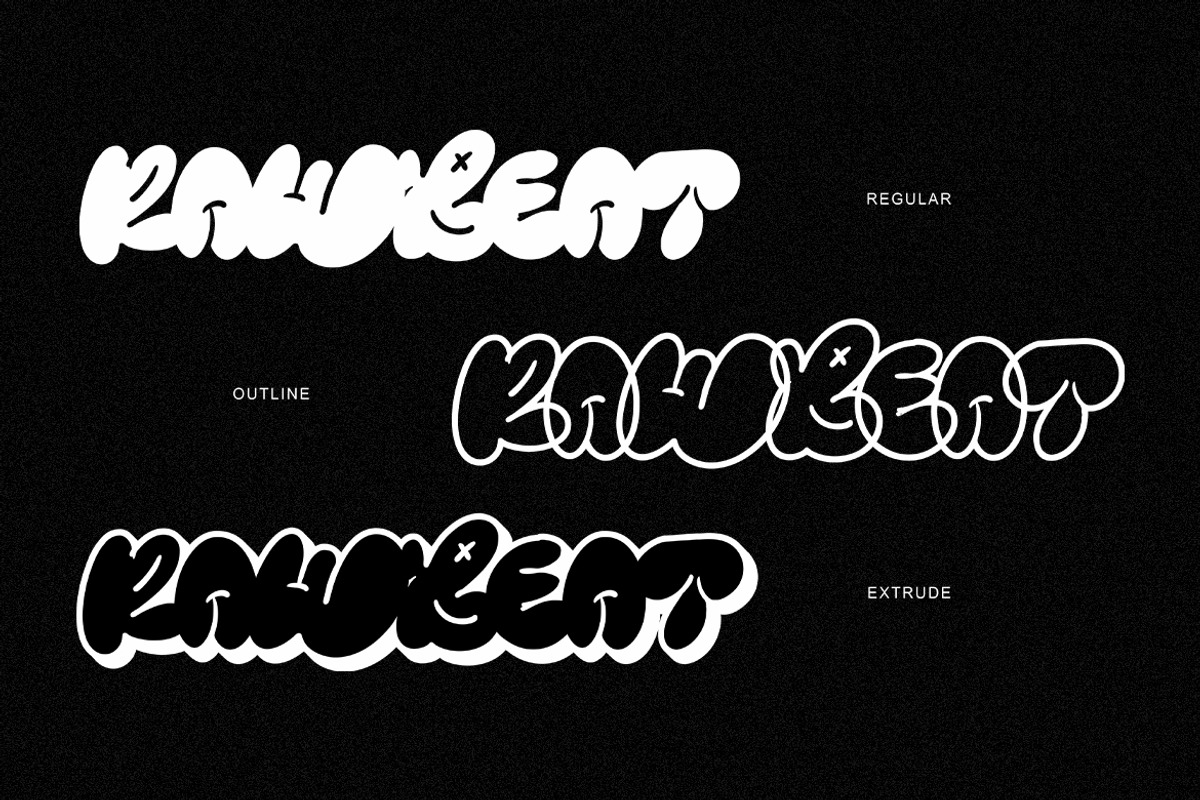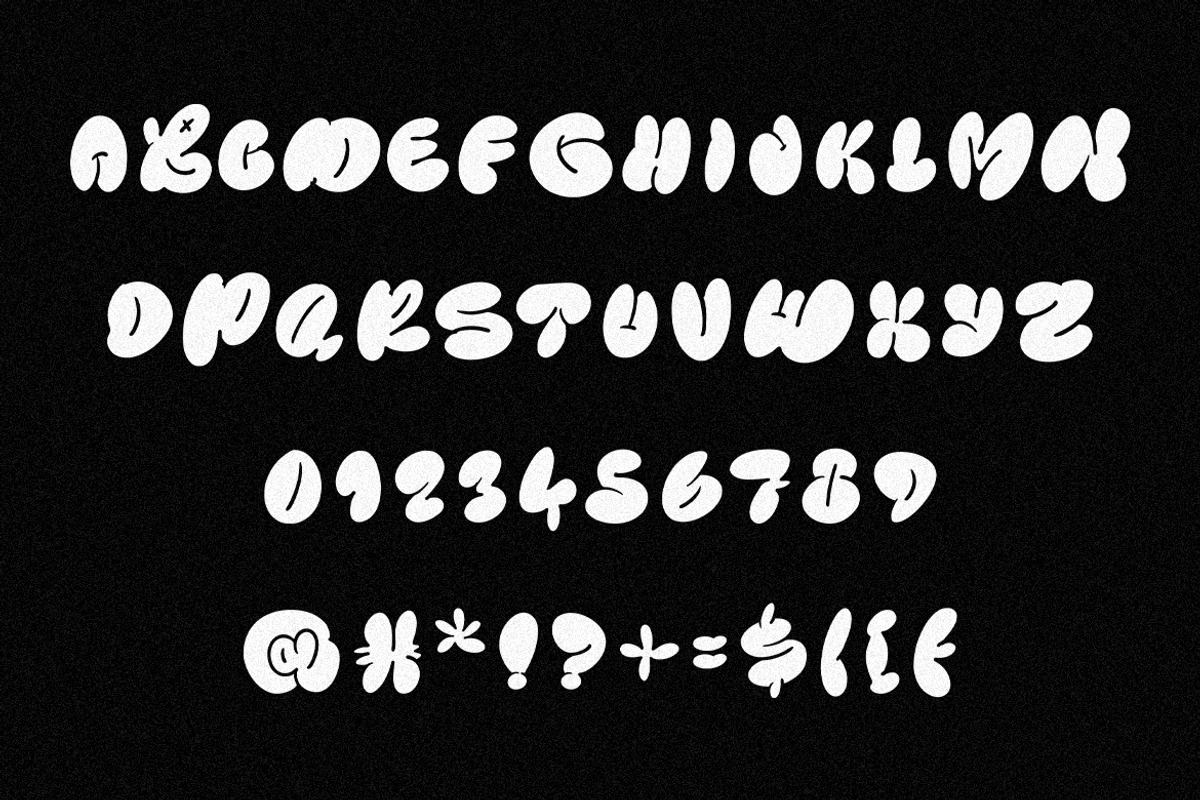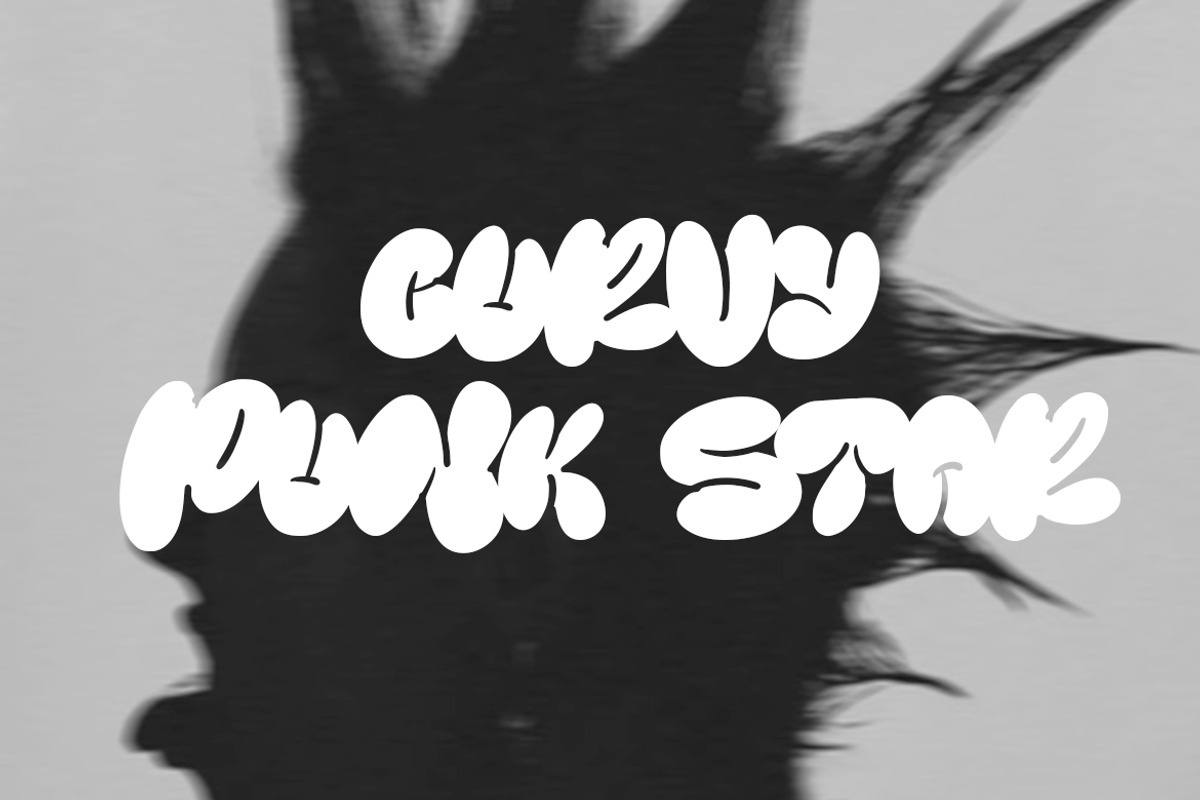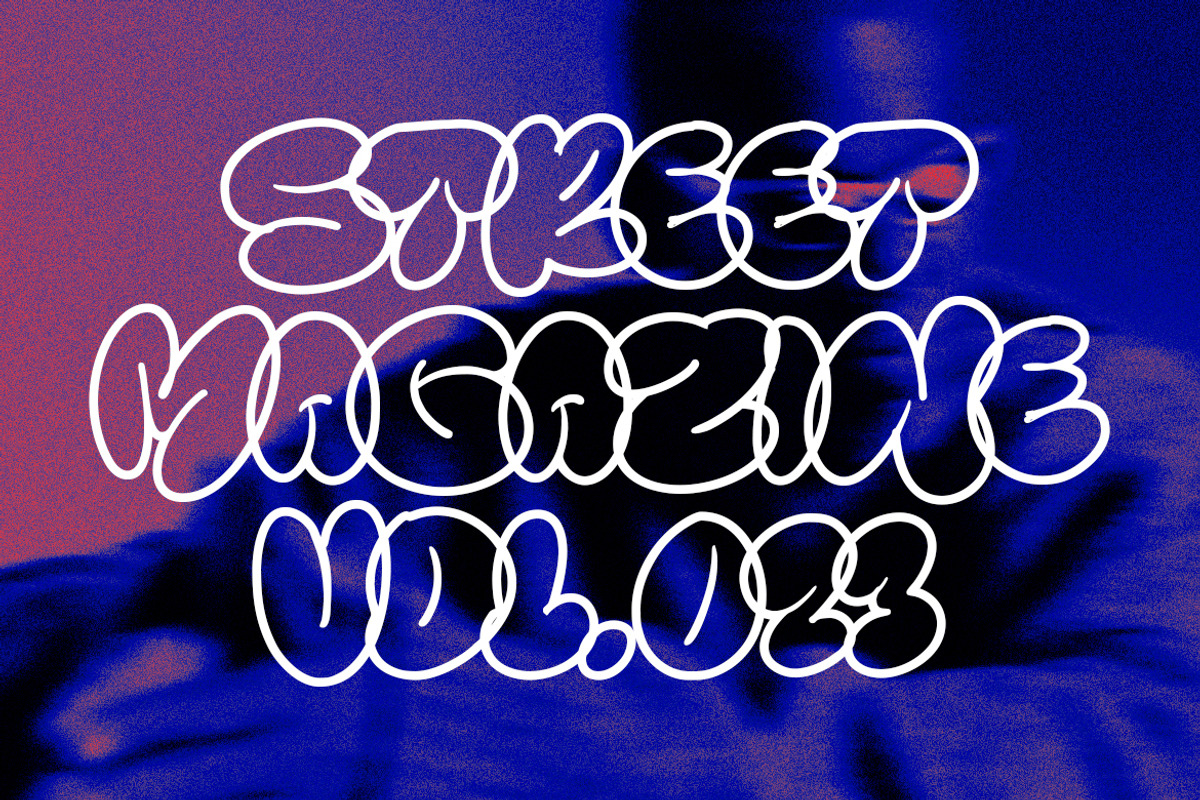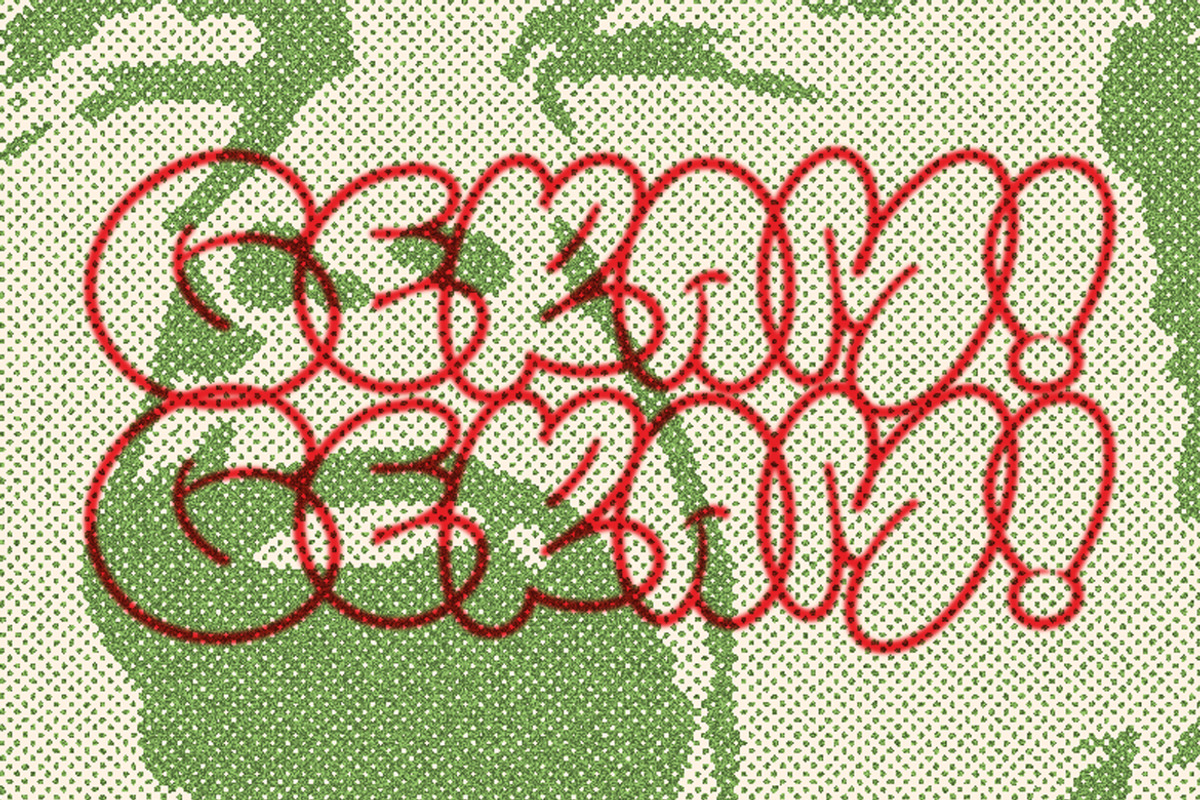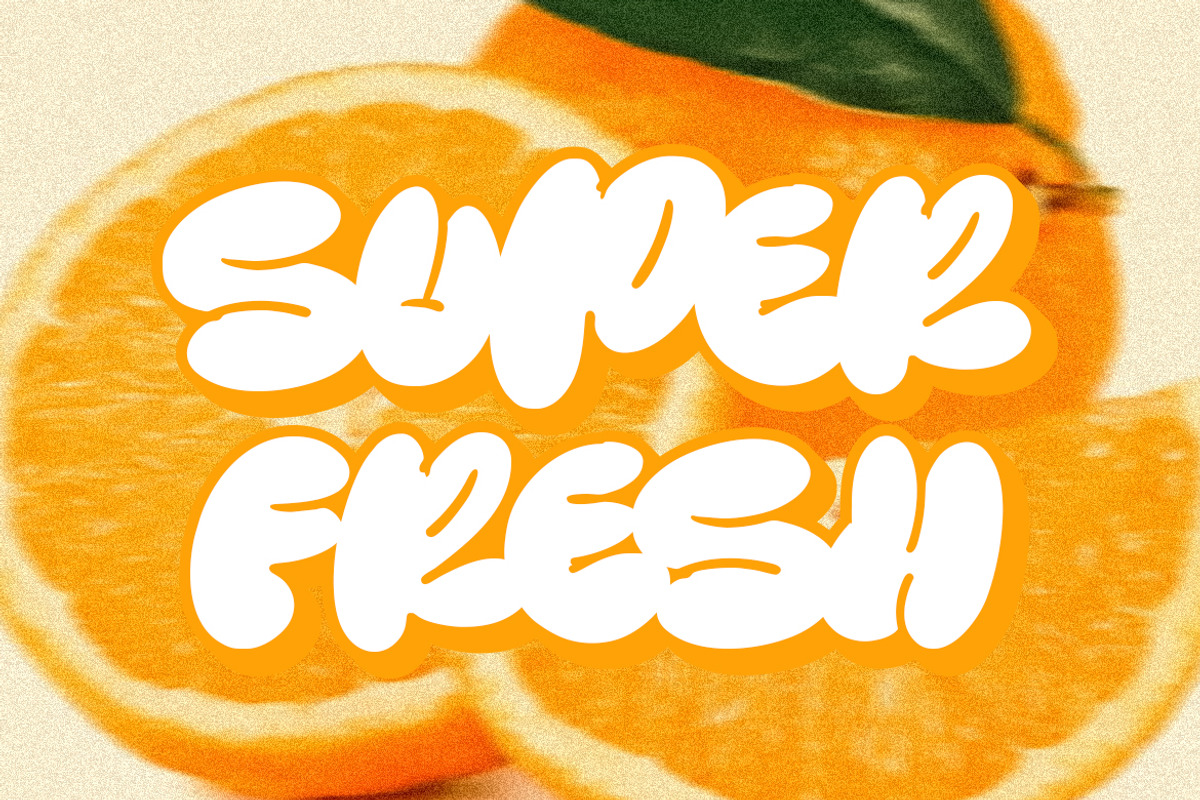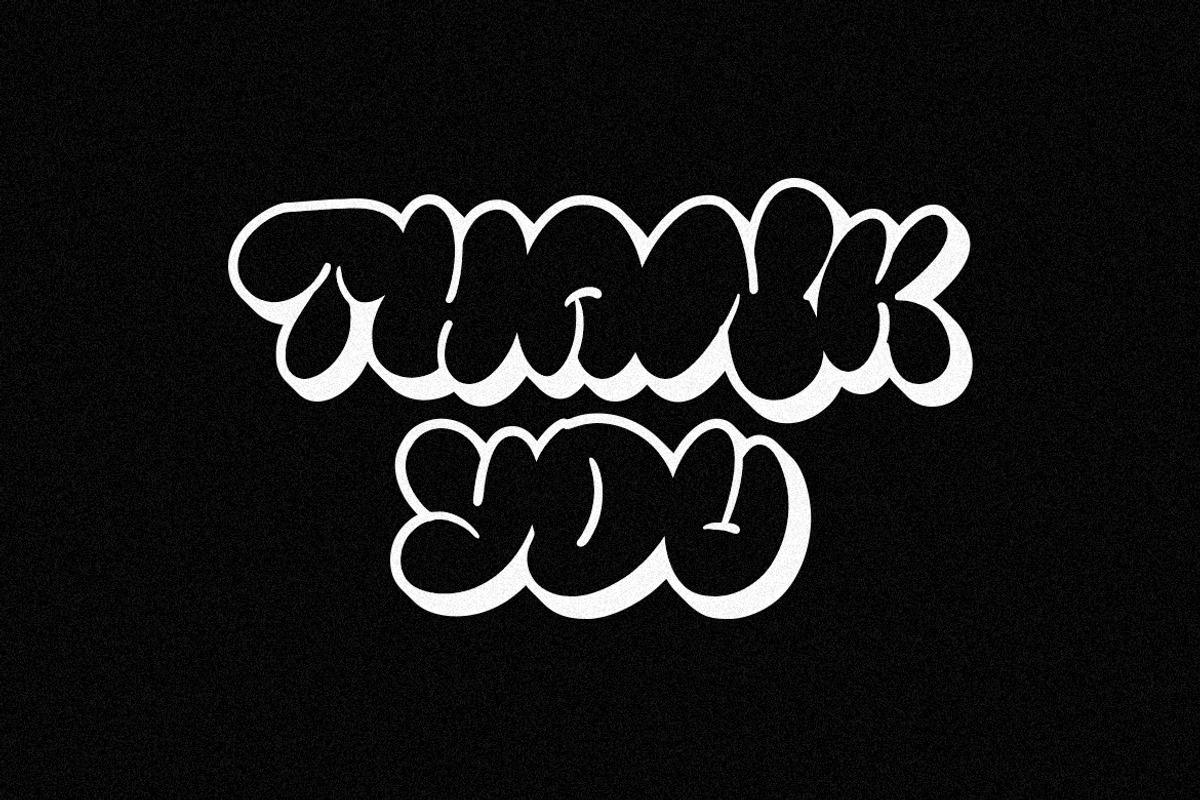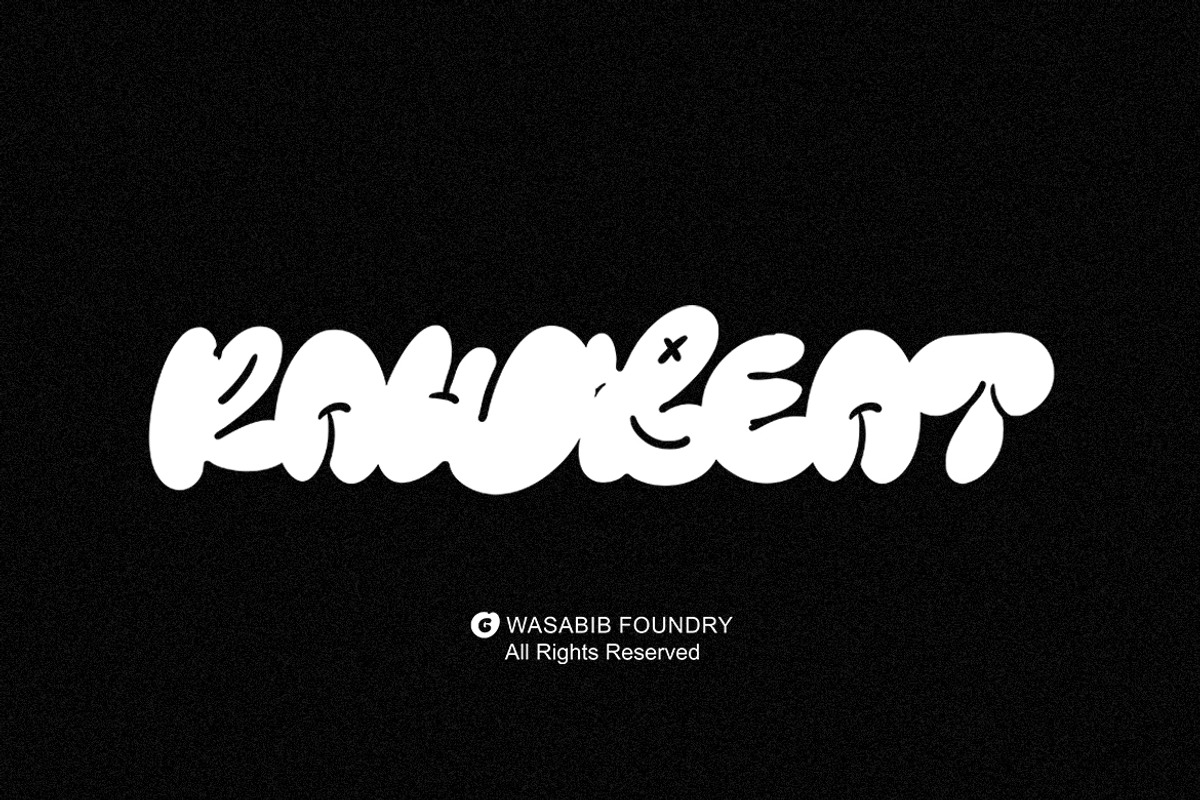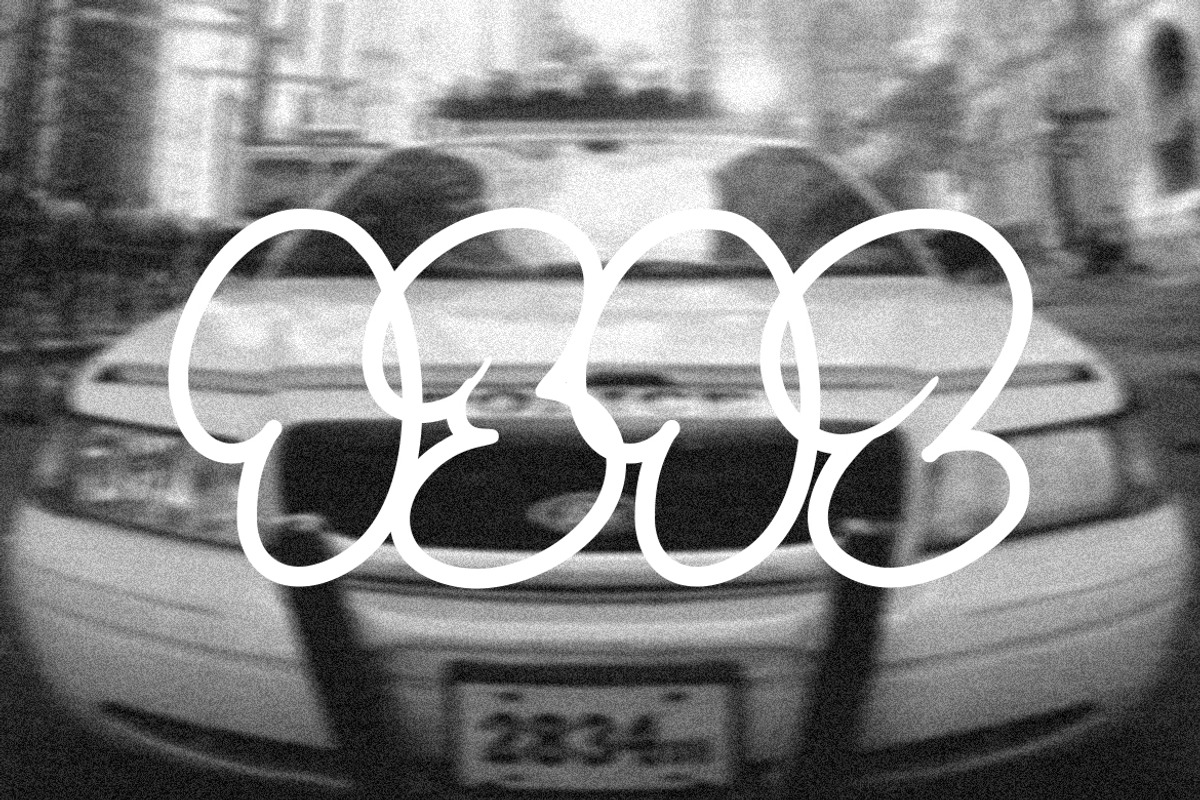
Rawbeat
RAWBEAT is a vibrant and eye-catching display font designed in a graffiti style. Its hand-drawn nature gives it a unique, artistic look, perfect for branding projects that need to stand out. Available in three styles (Regular, Outline, and Extrude), RAWBEAT offers versatility for various design applications. It's well-suited for use in posters, packaging, movie titles, and anything else that requires a playful and energetic touch.